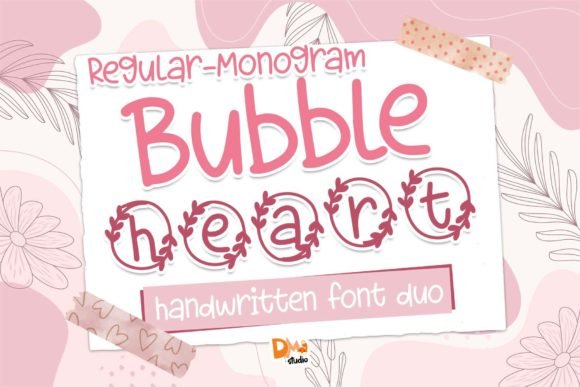
Introduction to Bubble Heart Font
Bubble Heart is a handwritten and decorative duo font.
Great for those who love monograms or like making cute crafts Make your own designs more unique and lovely using this stunning font.
Bubble Heart Font offers exceptional quality and versatility, making it a valuable addition to your design toolkit. Whether you’re creating for personal projects or commercial use, Bubble Heart Font delivers professional results.